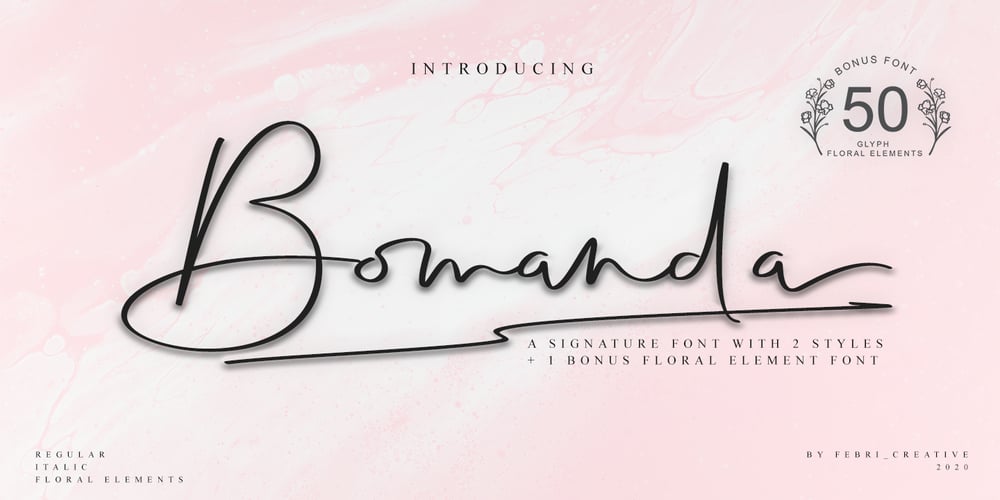
Bomanda Signature Font Family was designed by Febrianto Yuwono and published by Febri Creative. Bomanda Signature contains 3 styles and family package options. Bomanda Signature is a handwritten signature font.This font has 2 stylistic forms, namely regular and italic.Also added is a bonus 1 font, a floral element font that can be used for: logos, writing ornaments, making frames, and much more.You can create the perfect signature or logo with this font.What’s Included?- Bomanda Signature Regular OTF- Bomanda Signature Italic OTF- Bomanda Floral Elements OTF- More than 598 of glyphs- Works on PC & MacSimple InstallationsAccessible in the Adobe Illustrator, Adobe Photoshop, Adobe InDesign, CorelDraw, even work on Microsoft Word.Multilingual SupportThanks and have a wonderful day.